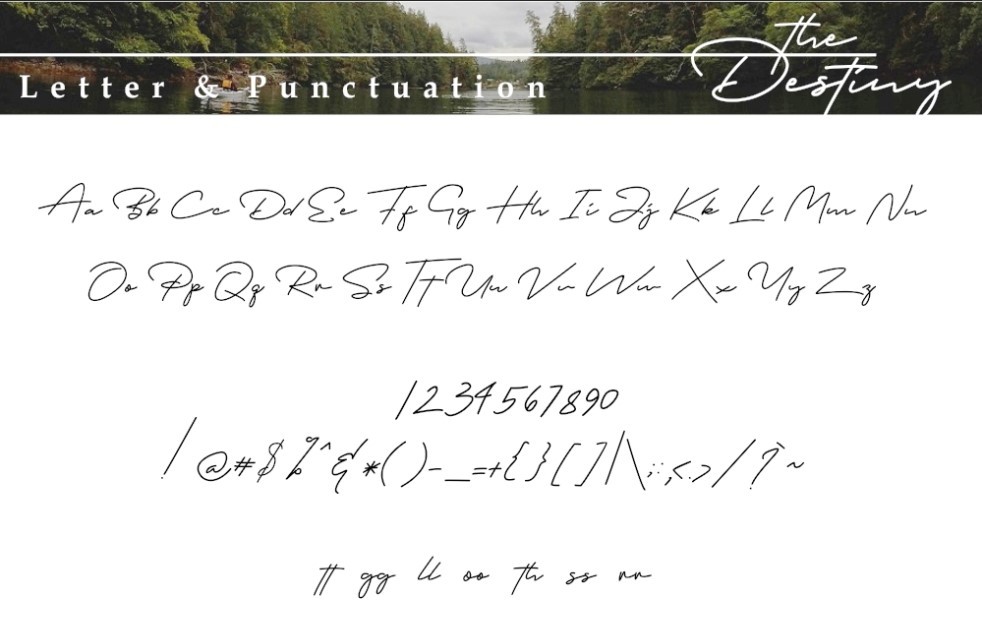
High Destiny Script Font
High Destiny Script Font is a calligraphy typeface. It’s so stunning with a dancing baseline. You could use these for logotype, t-shirt layout, typography poster, quote design, and so forth.
Style of High Destiny Script Font